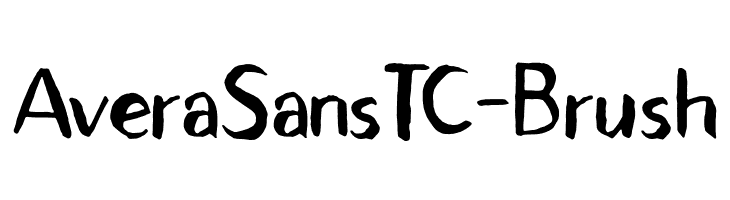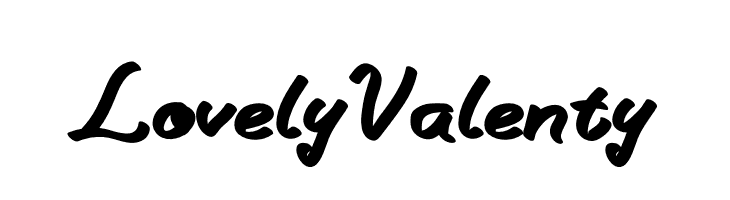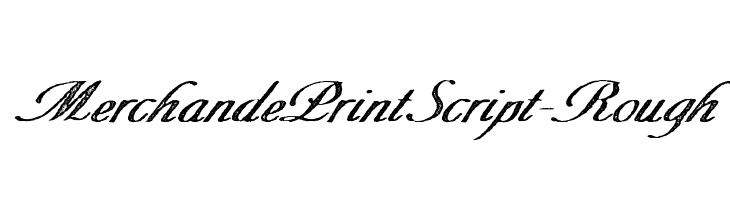
A bold, brush-style font with a hand-drawn, artistic appearance.
A bold, expressive handwritten font with thick, brush-like strokes.
( Fonts by Behind the Ink )
A delicate, handwritten script font with elegant, flowing strokes.
( Fonts by scratchones )
A lively and expressive script font with fluid, dynamic strokes and a handwritten quality.
( Fonts by Fontysia )
An elegant and flowing script font with smooth, cursive strokes.
( Fonts by Aluyeah Studio )
An elegant cursive script font with flowing, graceful curves.
( Fonts by Letterena Studios )
A casual handwritten font with smooth, fluid strokes and a personal touch.
( Fonts by PiPi Creative )
A playful, tall, and narrow font with a modern and whimsical style.